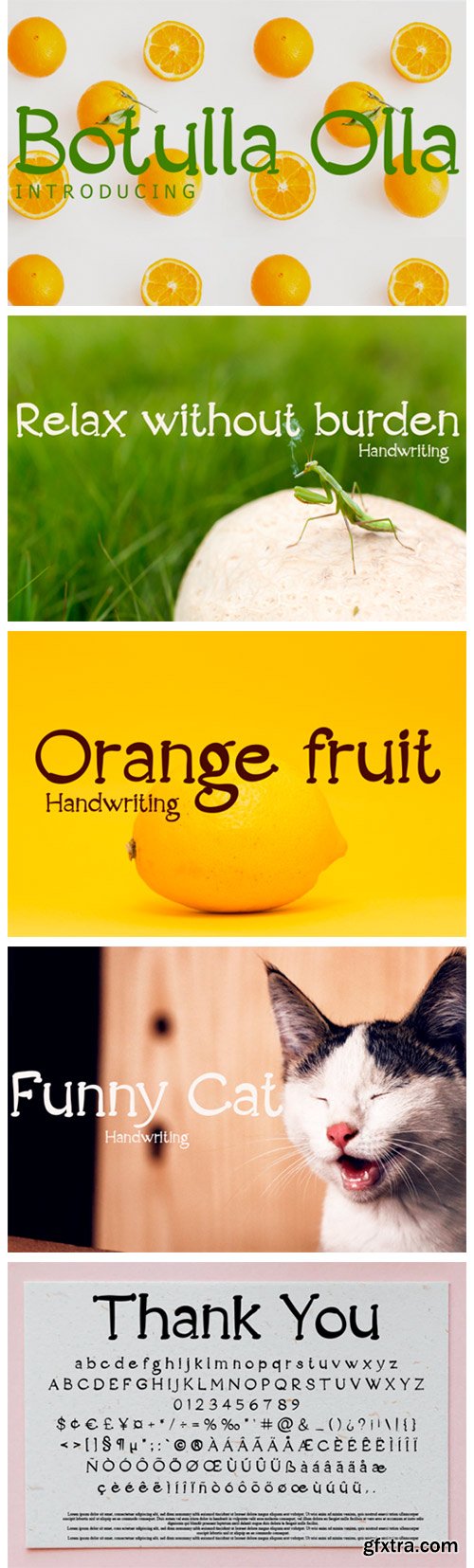
Botulla Olla Font
Botulla Olla is a cute and quirky handwritten font. Its friendly feel makes this font incredibly versatile, fitting a wide range of contexts. Add it to your creative ideas and notice how it makes them stand out!